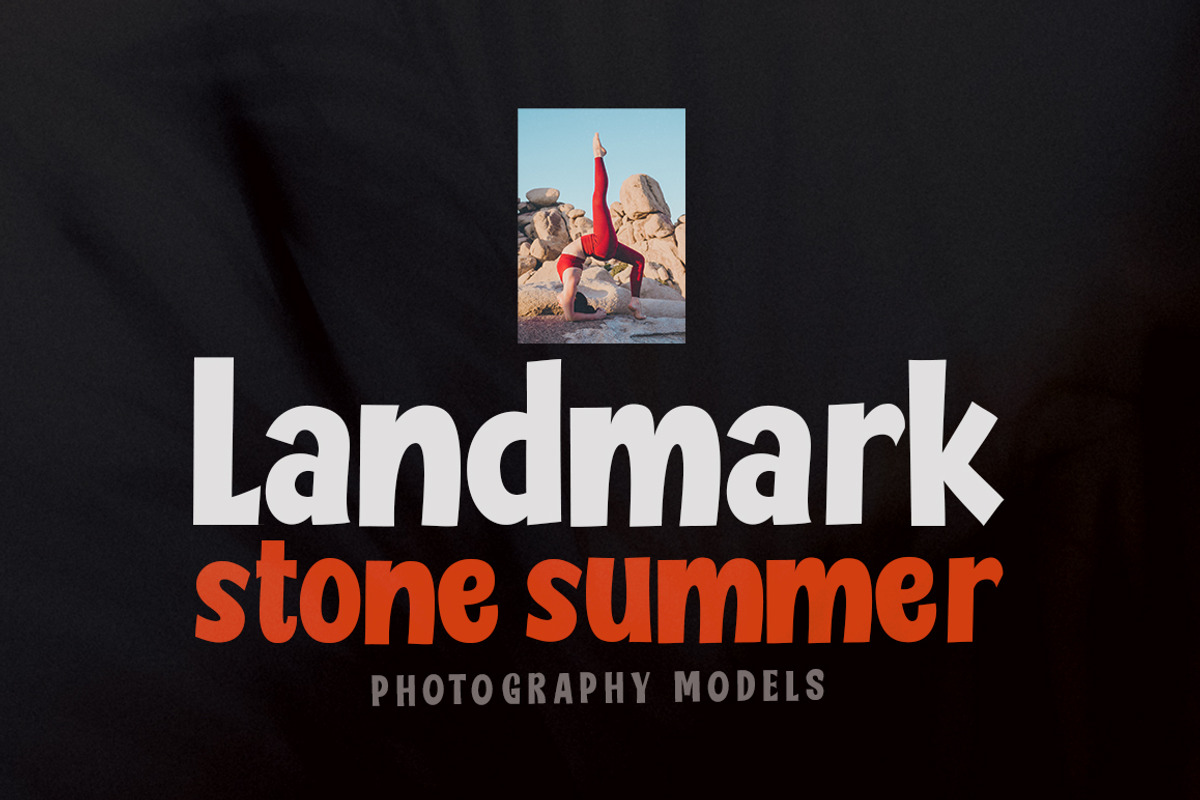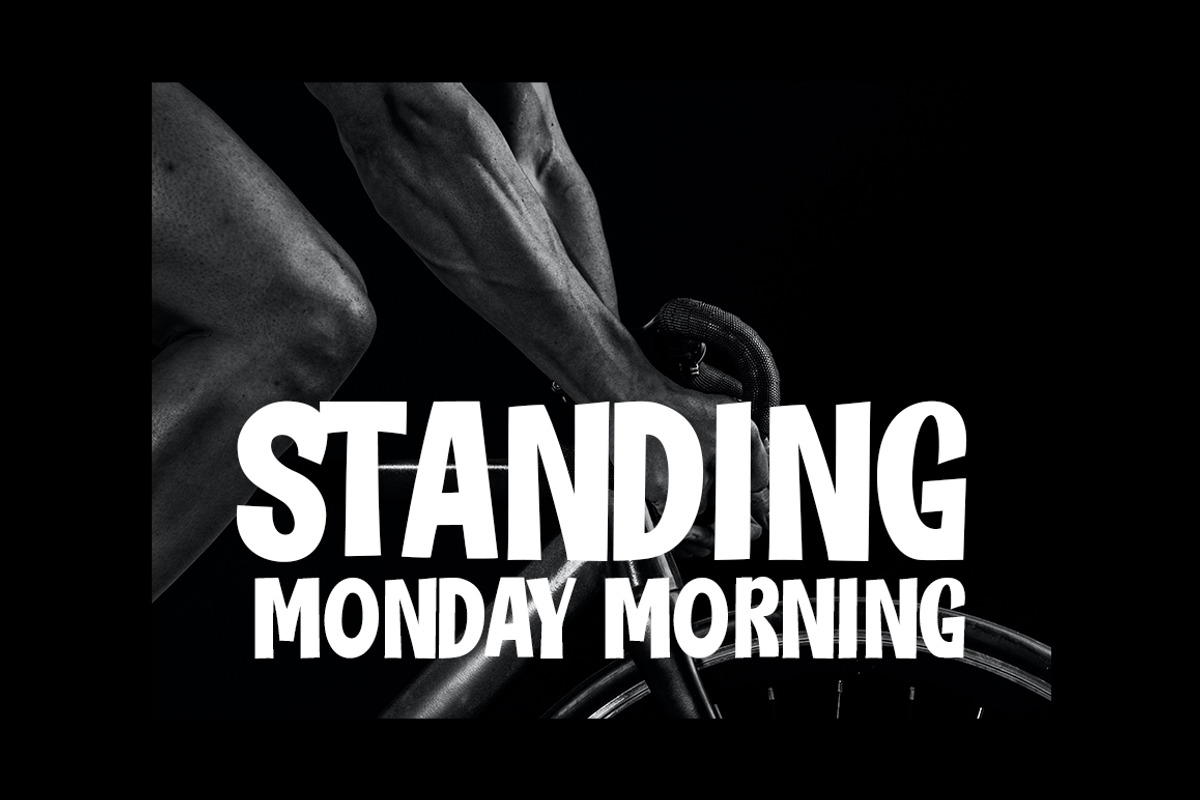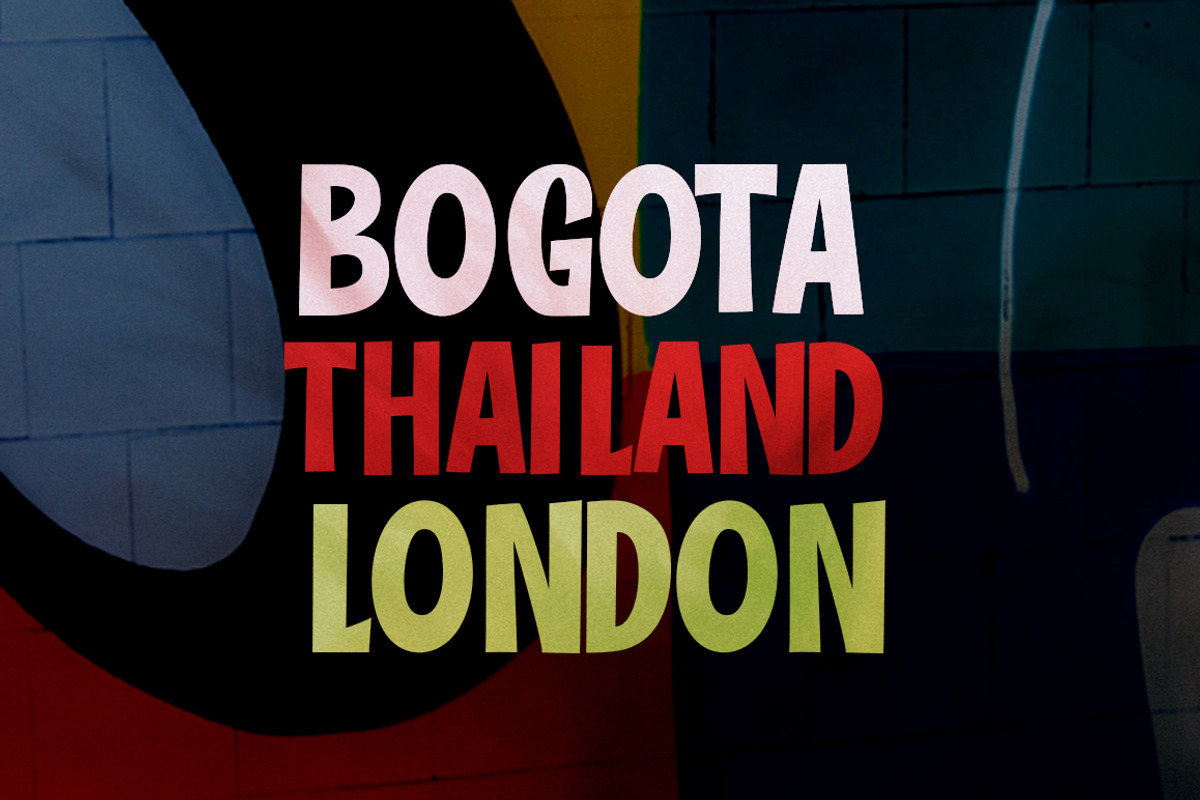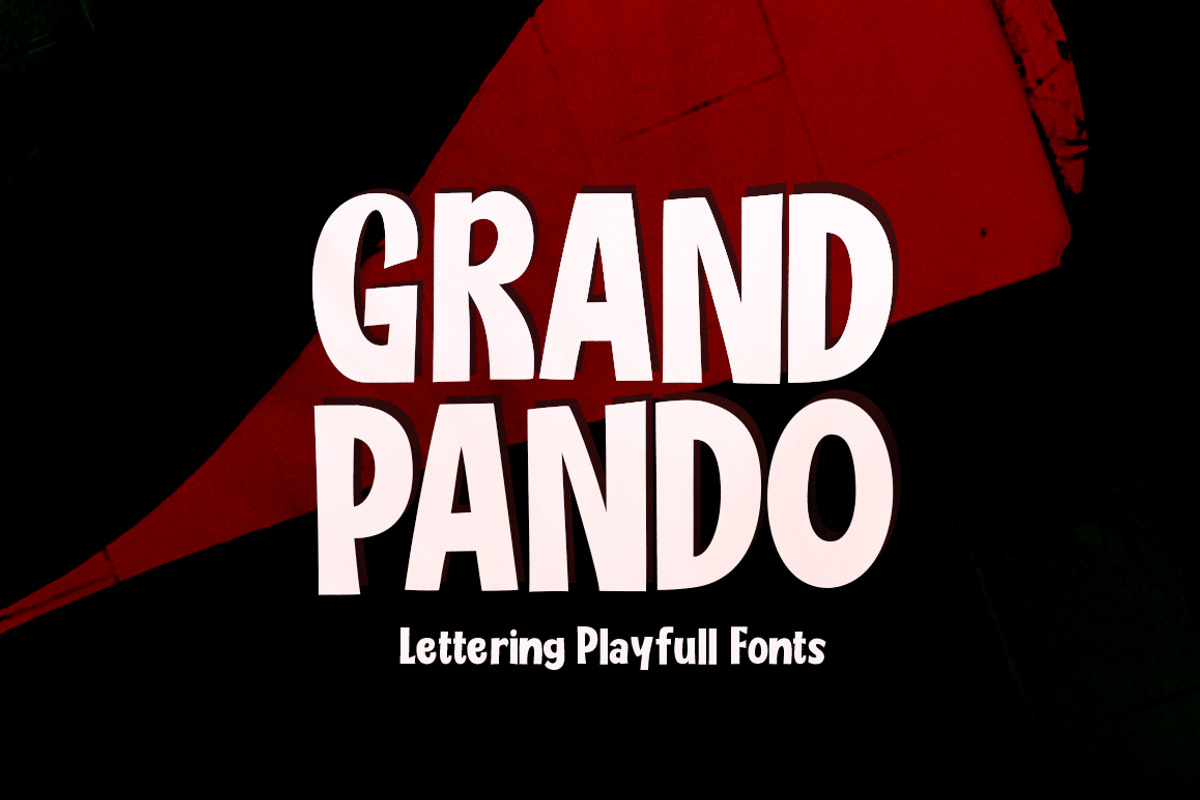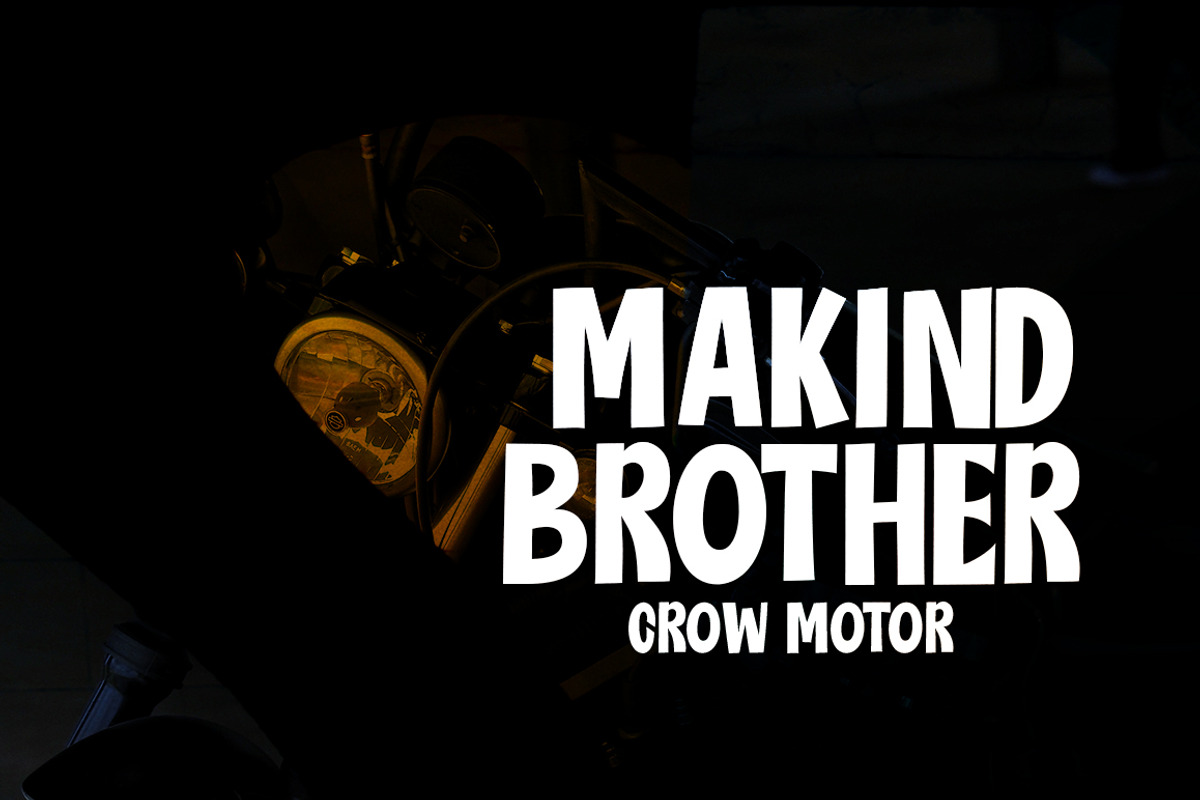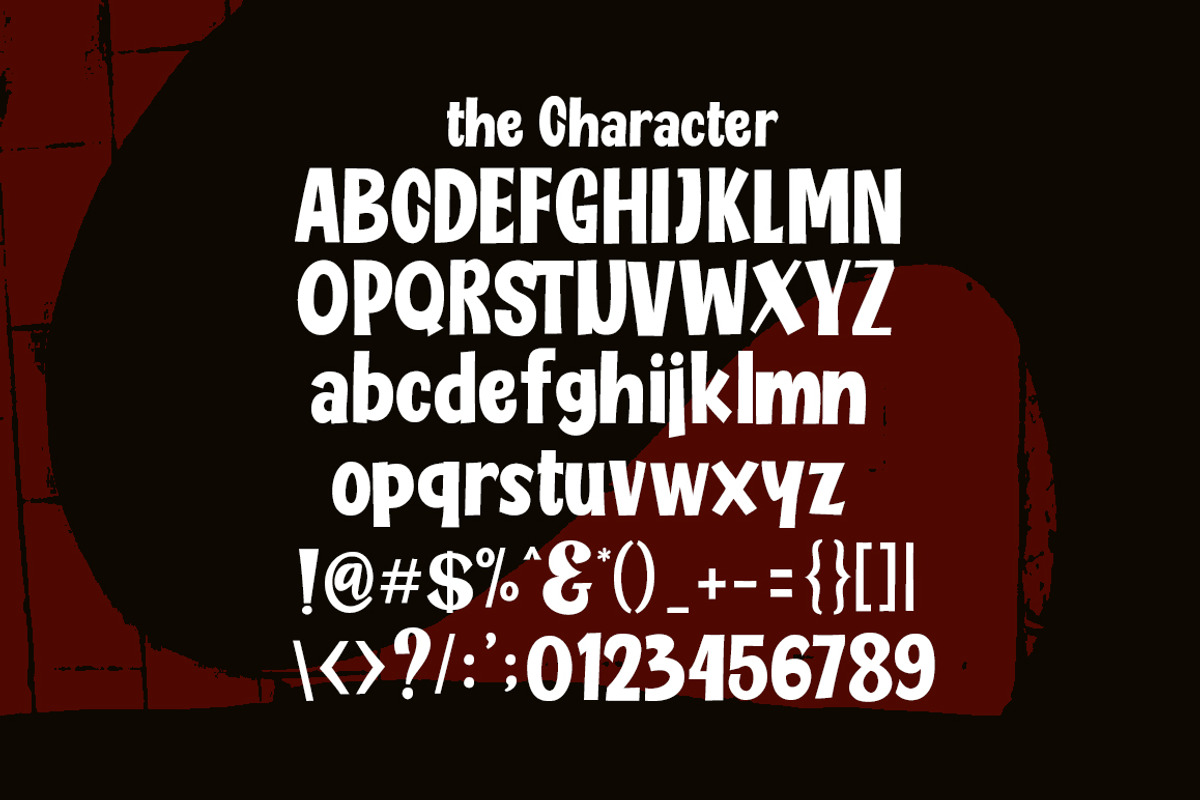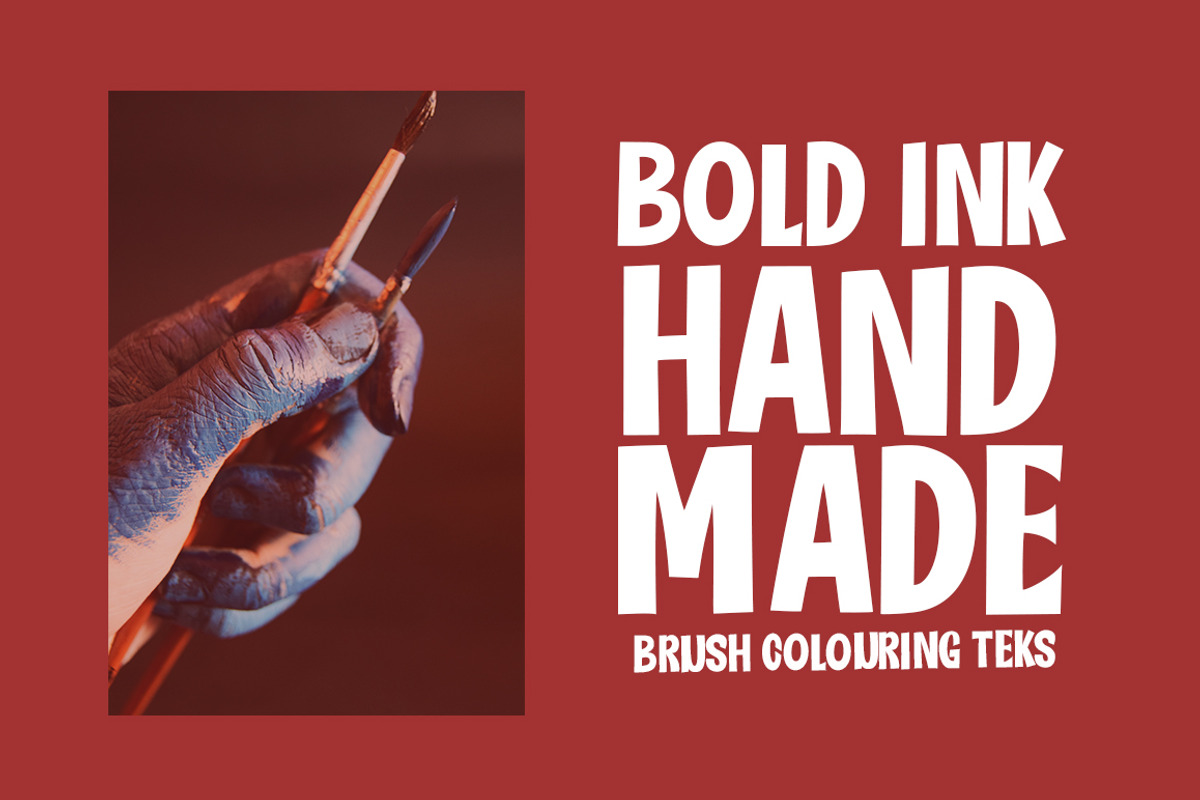
Grand Pando
Grand Pando is a sharp and bold display font, a trendy font that is very unique with a blend of modern character ligatures, and in my opinion, this product matches the theme of the teaser display in every headline design, business card, leaflet, magazine, children's event, and brand screen printing.